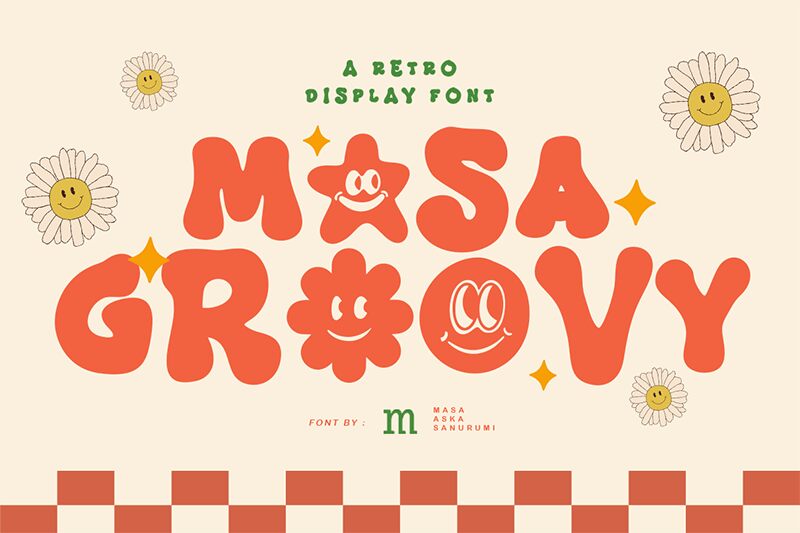
Masa Groovy is a bold display font that exudes a groovy flair, designed by the talented Masa Aska Sanurumi. Its curvaceous lines and playful loops hark back to the psychedelic era, while its solid weight anchors it firmly in modern design. The font's aesthetic is both eye-catching and expressive, making it an ideal choice for creative projects that require a touch of retro charm with a contemporary twist.
The dynamic flow of Masa Groovy's characters offers a visual rhythm that can elevate branding, poster designs, and editorial headings with its distinctive style. Despite its nostalgic roots, the typeface maintains versatility across various mediums due to its clean readability and impactful presence. Embrace the unique vibe of Masa Groovy to infuse your work with an unmistakable groove that resonates across generations.